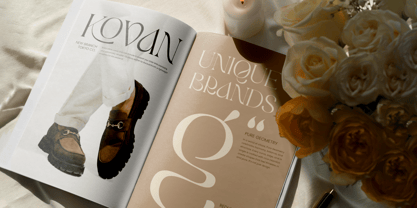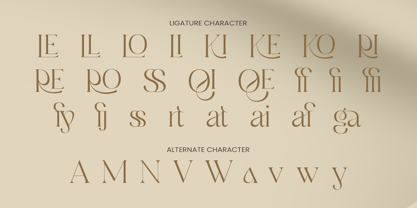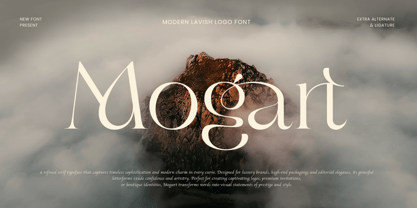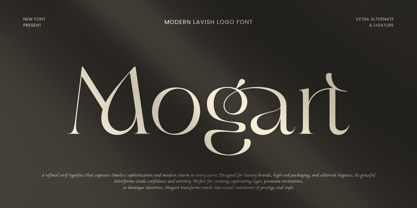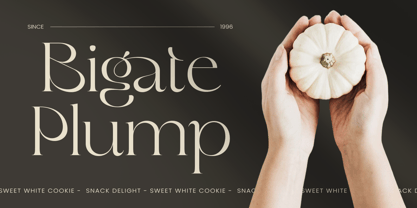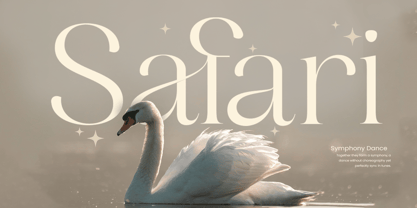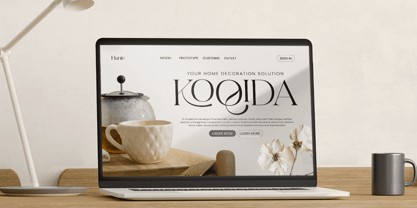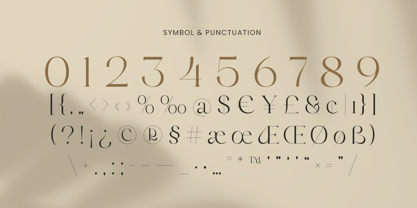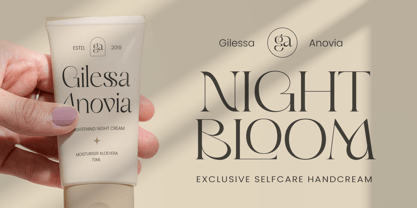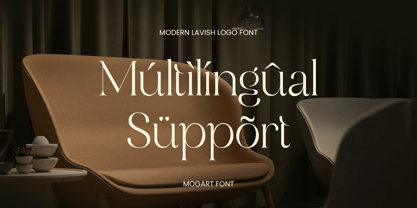
Mogart is a modern lavish logo font crafted to deliver a polished, high-end impression with contemporary elegance. Its refined letterforms and confident presence create a premium typographic voice—ideal for brands that want to feel exclusive, tasteful, and unforgettable.
Perfect for luxury branding, fashion logotypes, beauty packaging, jewelry labels, and upscale editorial design, Mogart elevates logos, headlines, invitations, product packaging, signage, and social media visuals with a clean yet lavish aesthetic. The balance of modern structure and classy detail makes it versatile for both minimal layouts and statement-driven compositions.
Whether you’re designing for a boutique brand, premium product line, or sophisticated identity system, Mogart brings the lavish tone you need to make every word look expensive and intentional.
Mogart – Modern Lavish Logo Font Features
Modern lavish letterforms designed for premium logotypes
Ideal for luxury branding, fashion, beauty, and boutique identity
Perfect for logos, packaging, editorials, and elegant headlines
Refined shapes that stay clean, classy, and readable
Includes uppercase, lowercase, numerals, and punctuation
Sharp results for both print production and digital use
OpenType features for refined typographic styling
Elevate luxury branding with Mogart—crafted for modern lavish logos with timeless appeal. ✨